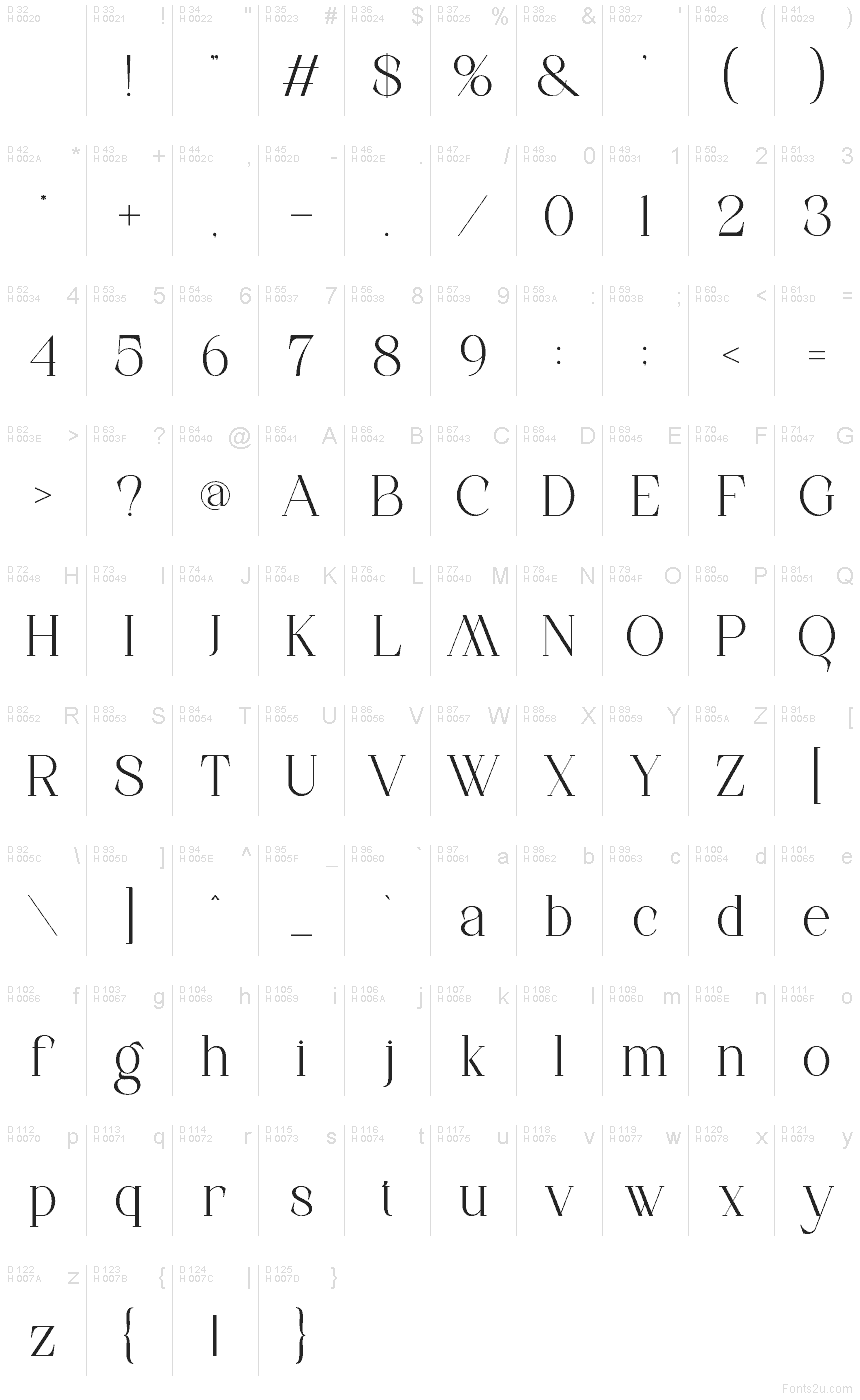
Ranium Regular
Ranium font by Ermedia Studio is a free high-contrast serif font. Its defining move is the razor‑fine hairline meeting plush, inky curves—think crisp stems that taper into sculpted bowls with a subtle sparkle at display sizes. The rhythm feels poised and editorial: tall forms, elegant spacing, and just enough bite in the terminals to read luxe without feeling fussy.
Using Ranium, headlines snap into focus for fashion branding, magazine covers, beauty campaigns, boutique packaging, event posters, and book jackets. Set it large with a touch of tracking, and pair with a quiet, modern sans for body copy—this free font does the talking while the sans keeps things grounded.